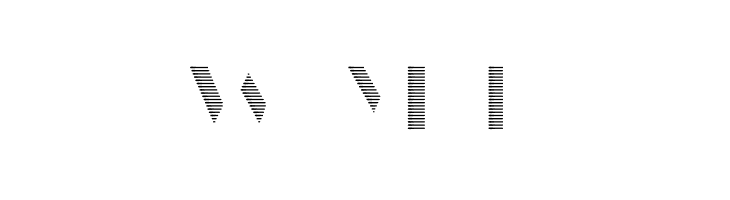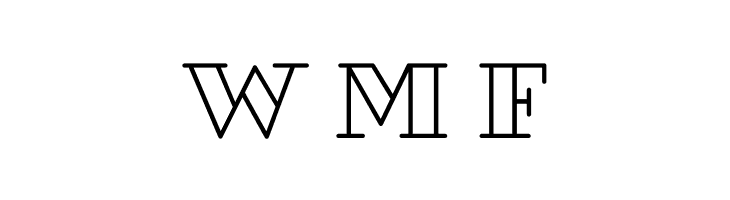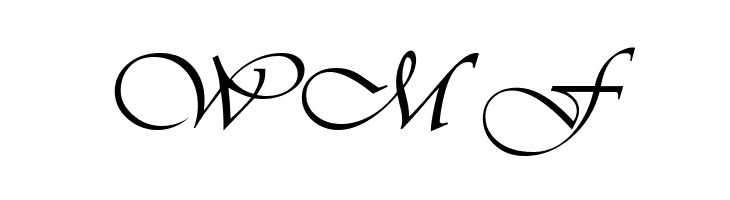
A carved, textured serif font with a modern twist.
A bold, cutout-style font with high contrast and geometric shapes.
An elegant outline serif font with high contrast and refined details.
A bold, modern font with geometric structure and high contrast.
An elegant and flowing script font with ornate, decorative letterforms.